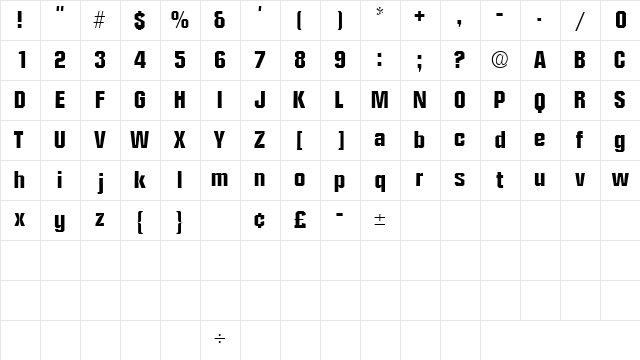
ConexSSK Regular
Design Context for ConexSSK Typeface
ConexSSK offers clean, dependable letterforms without strong stylistic allegiance, making it a practical choice for designers who need flexibility.